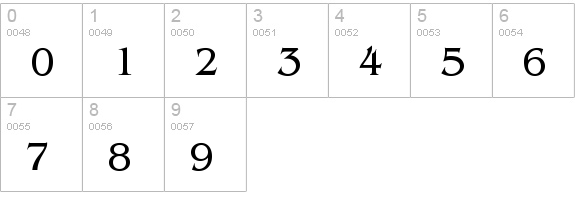
BenguiatEF-Book is a comfortable, highly readable variant in the BenguiatEF typeface family \xE2\x80\x94 well suited to long-form body text, articles, and editorial content.
BenguiatEF-Book is a classic and elegant font that exudes sophistication and style. With its timeless design and versatile appeal, this font is perfect for a wide range of projects, from branding to editorial design. The clean lines and balanced proportions of BenguiatEF-Book make it a popular choice for those seeking a refined typographic solution. The best part about BenguiatEF-Book is that it is available for free download at FontsMarket.com. This means that you can easily access this beautiful font and use it in your projects without any cost. Whether you are a designer, a student, or a business owner, BenguiatEF-Book offers a high-quality typeface that will elevate your work and make a lasting impression. Don't miss out on the opportunity to enhance your designs with BenguiatEF-Book. Download this exquisite font for free today and add a touch of elegance to your projects.